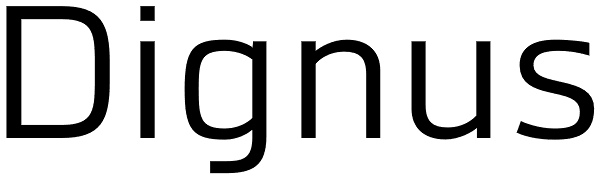
Dignus
Dignus was inspired in two clever and famous typefaces: Bank Gothic and Microgramma. Bank Gothic designed by Morris Fuller Benton for ATF in 1930. Microgramma typeface designed by Alessandro Butti and Aldo Novarese for Nebiolo in 1952. Those...